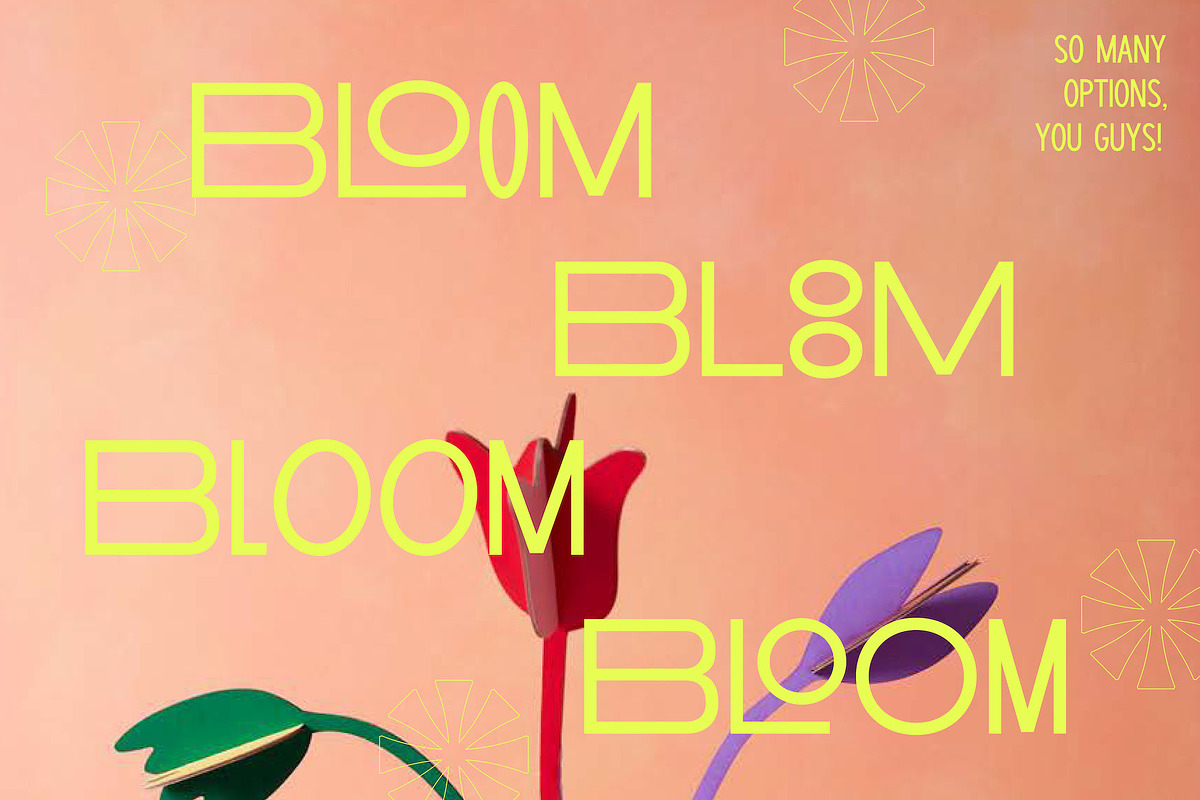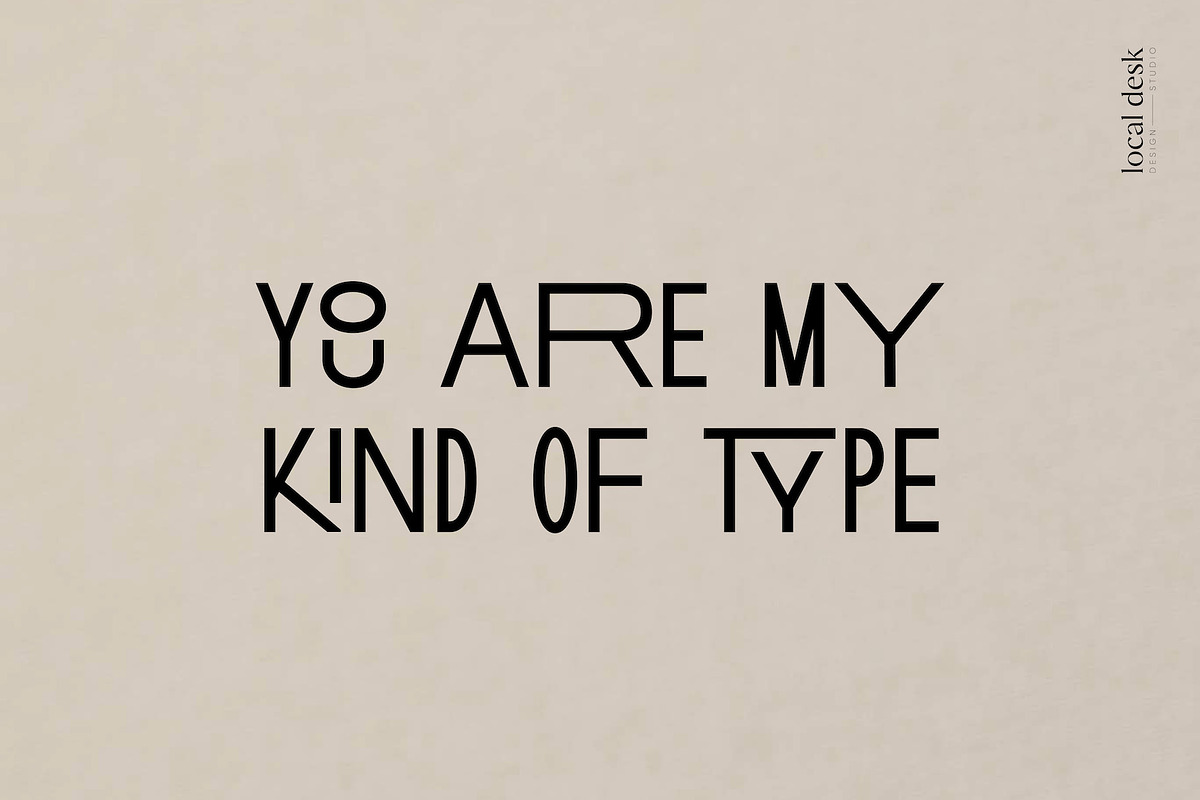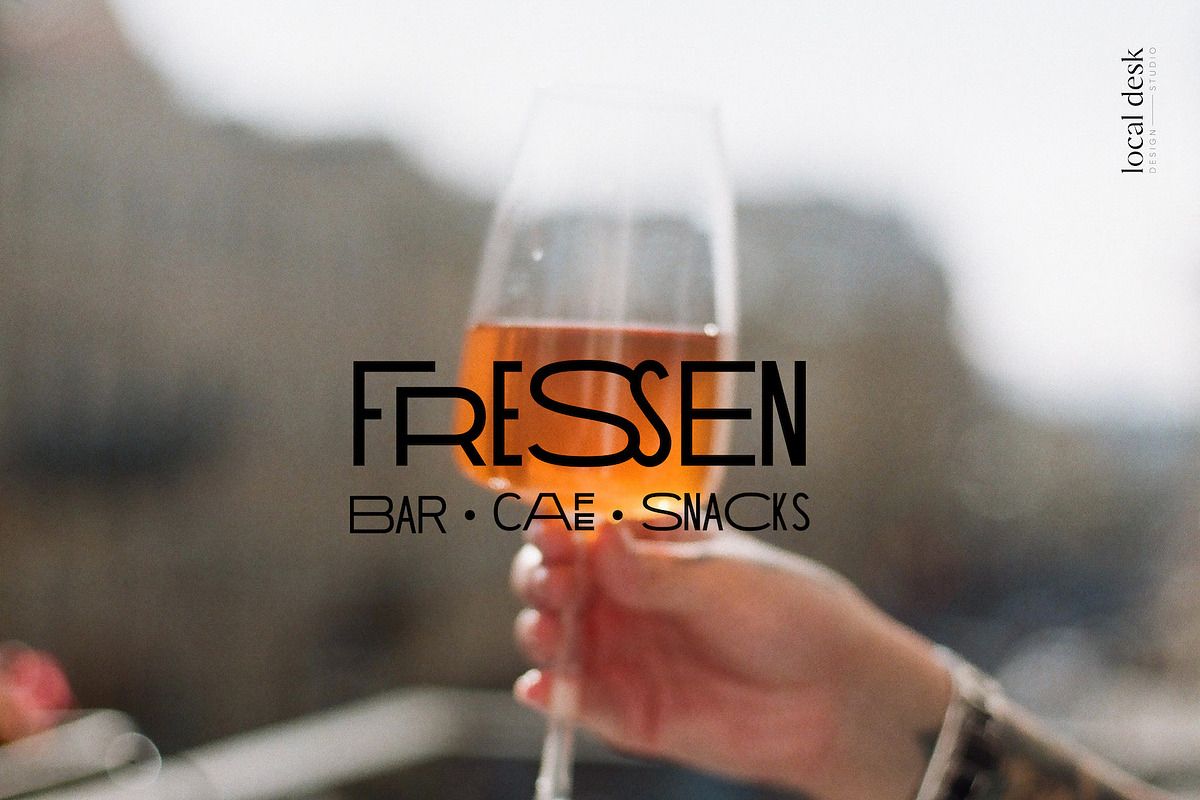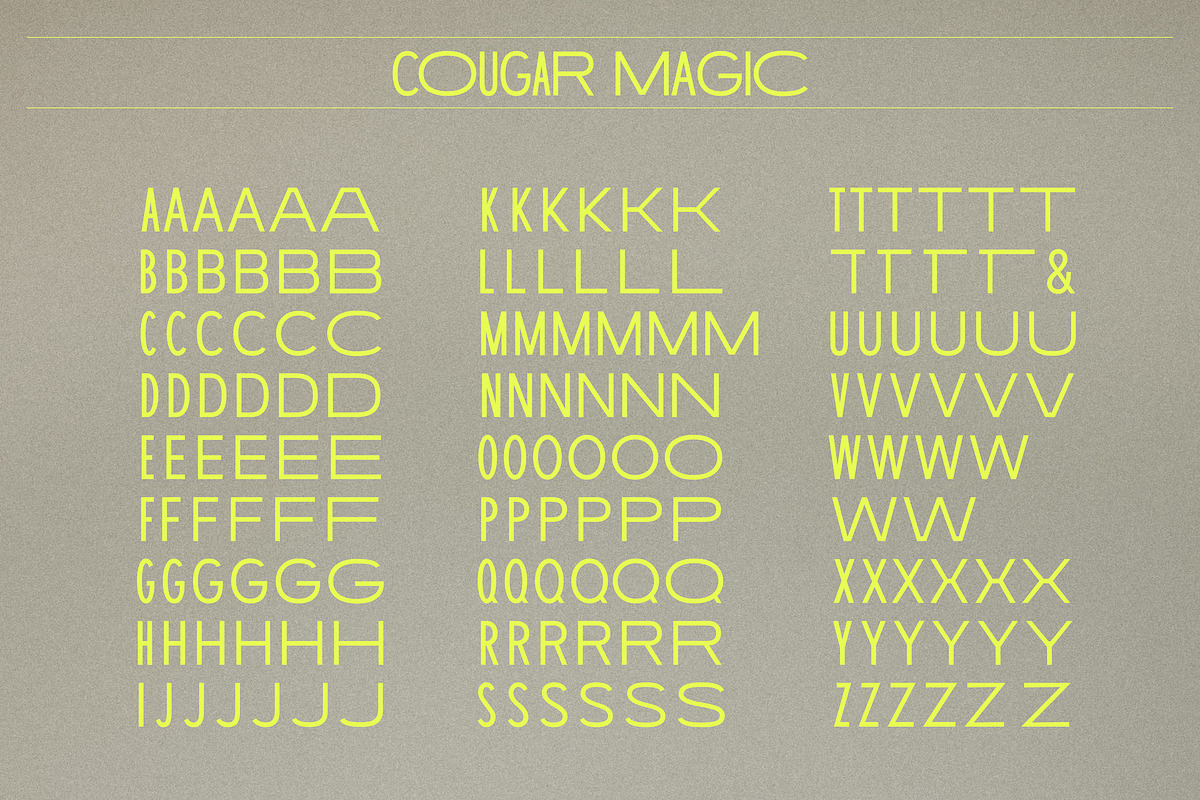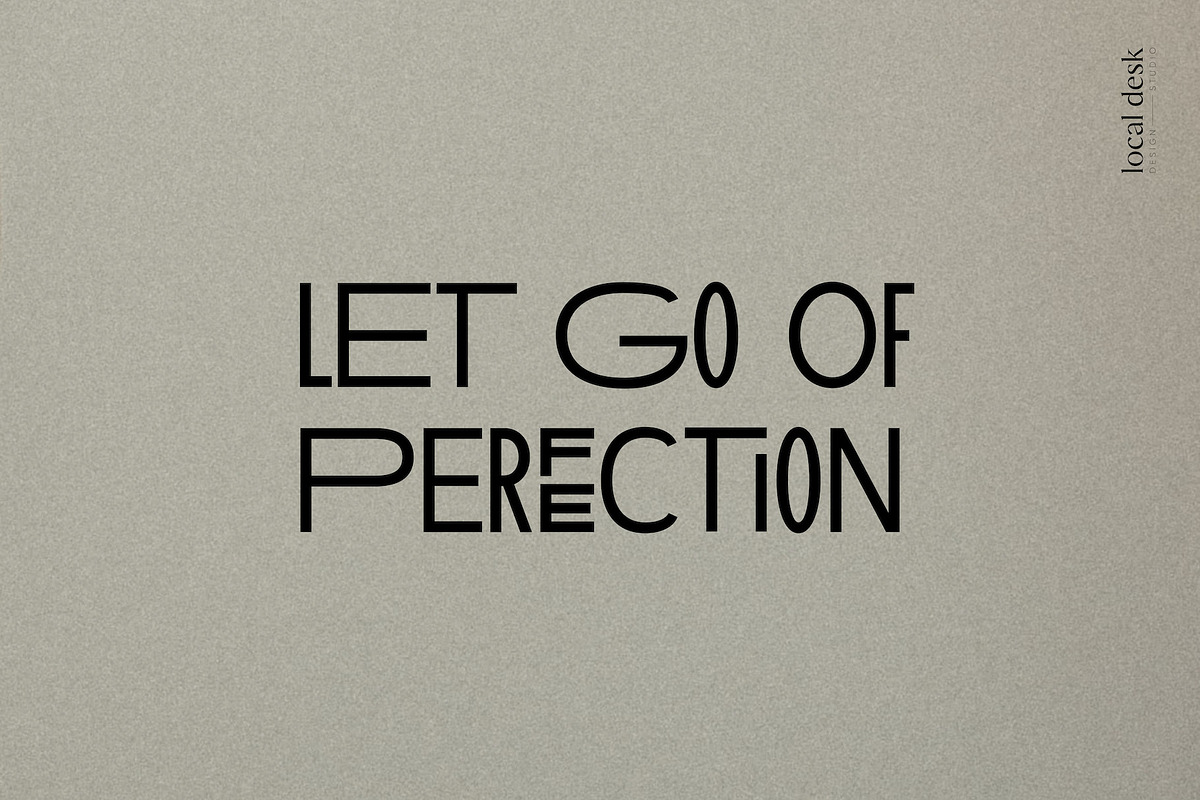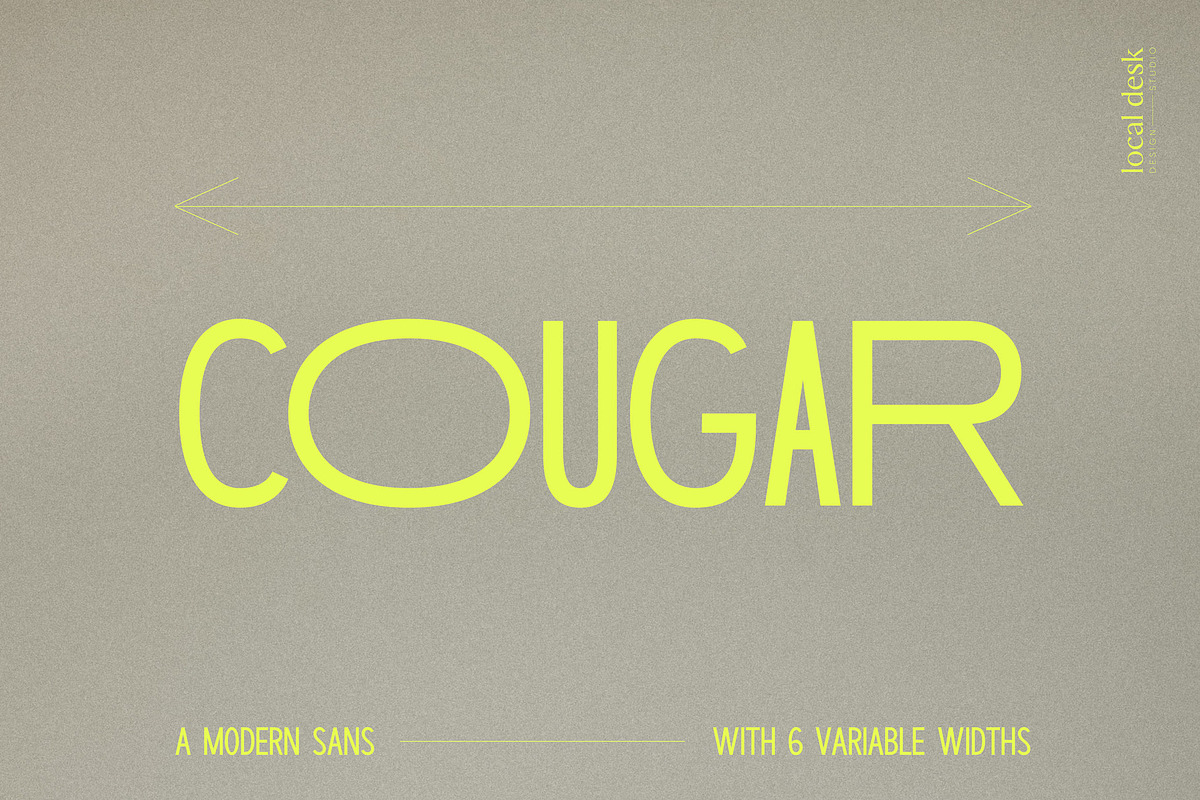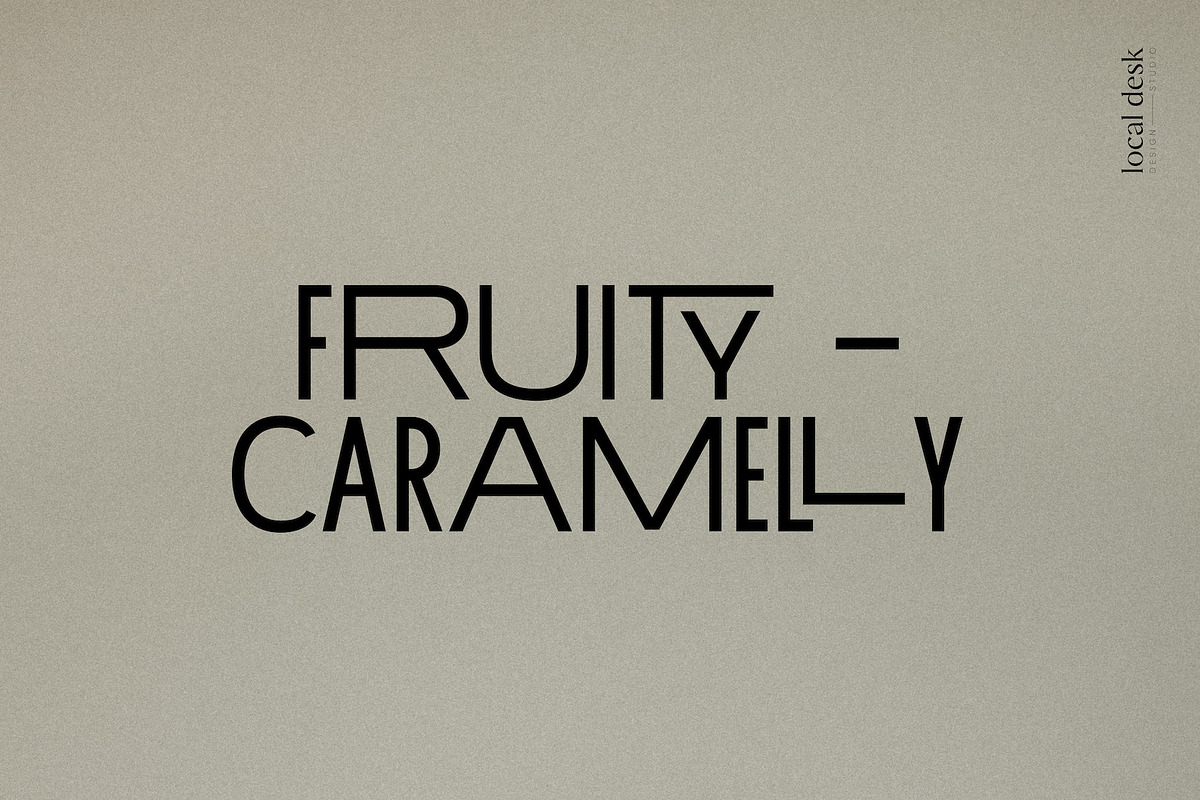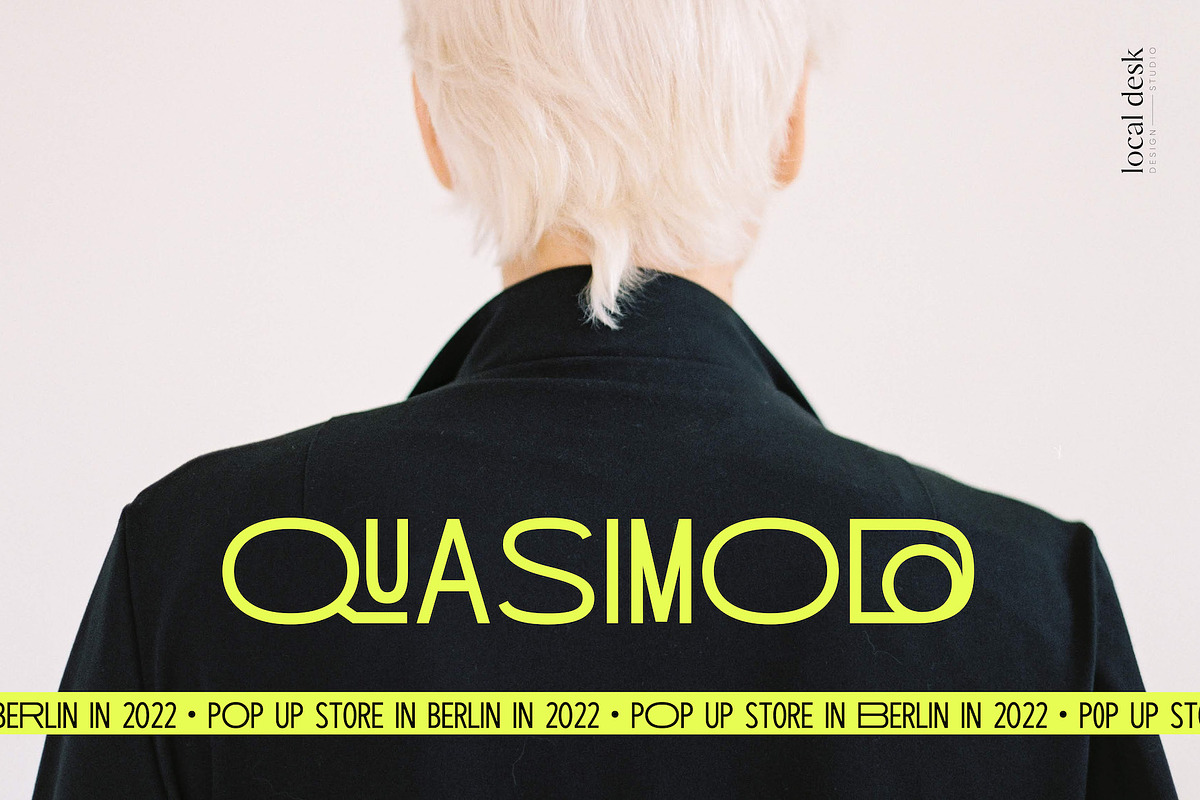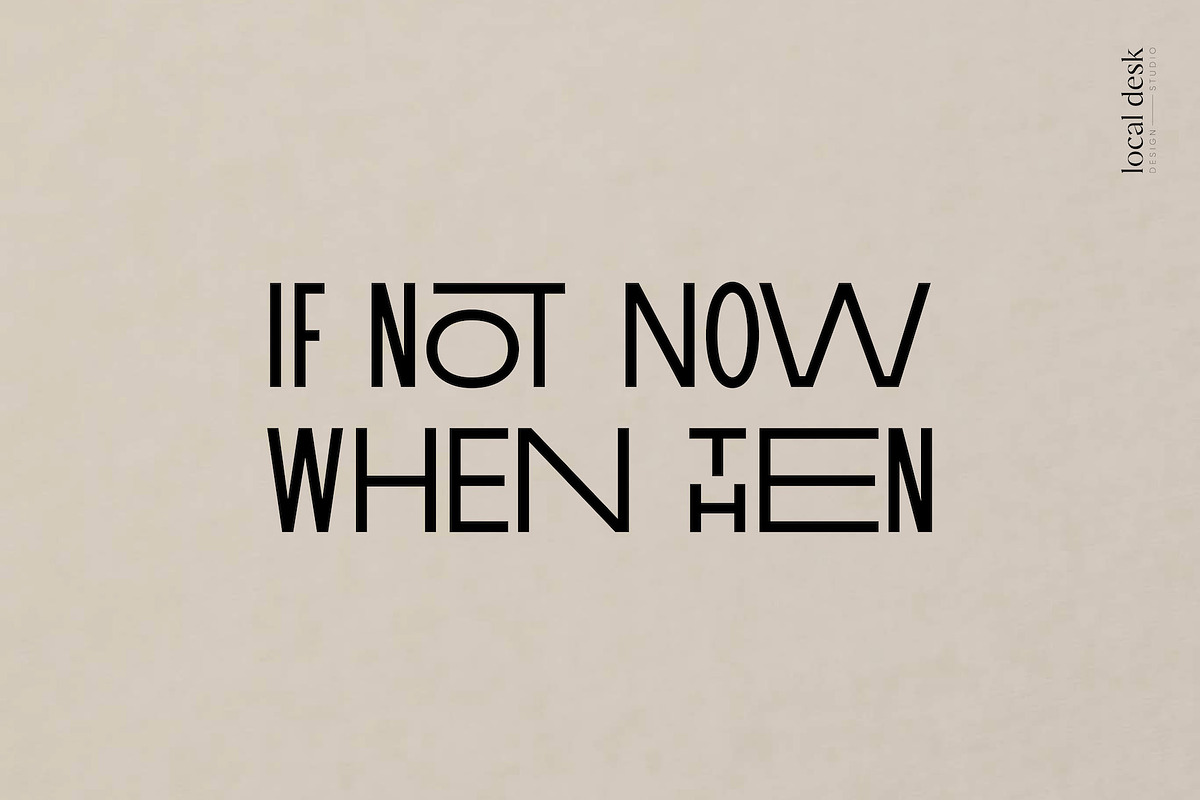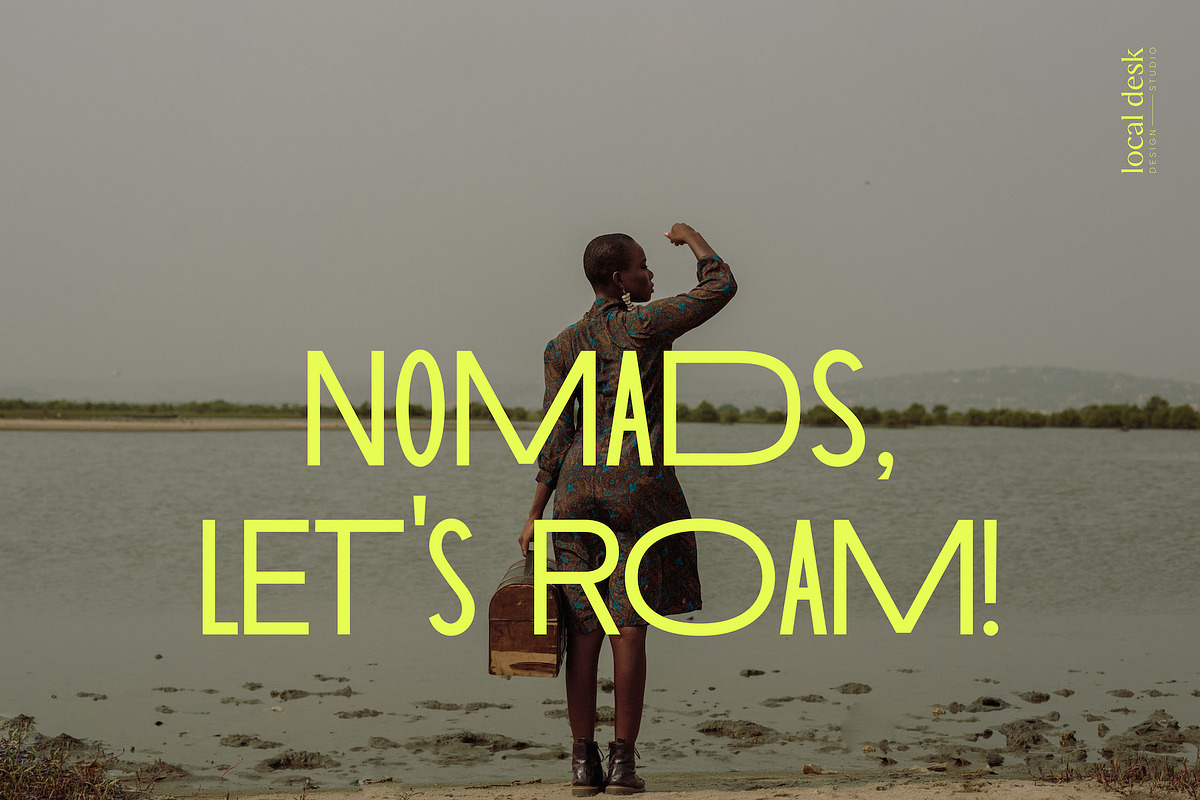
Cougar – Variable Widths Sans
Cougar is a modern & minimalist sans serif typeface with 6 variable widths and perfectly suited for designing unique logos & brands, bold packaging, powerful website headers, and so much more!
This font is equipped with 59 ligatures to make everything you design look refined, unique and professional – your next design project will come together effortlessly. The thoughtfully designed alternates come in 6 different widths to create a perfect balance for your design project.
This font is perfect for: bold branding, unique cover designs, stylistic headings, clean packaging, meaningful quotes and so much more.
- Uppercase Letters
- 6 variable widths for each letter except the 'I'
- Basic Numbers & Punctuation
- 59 ligatures